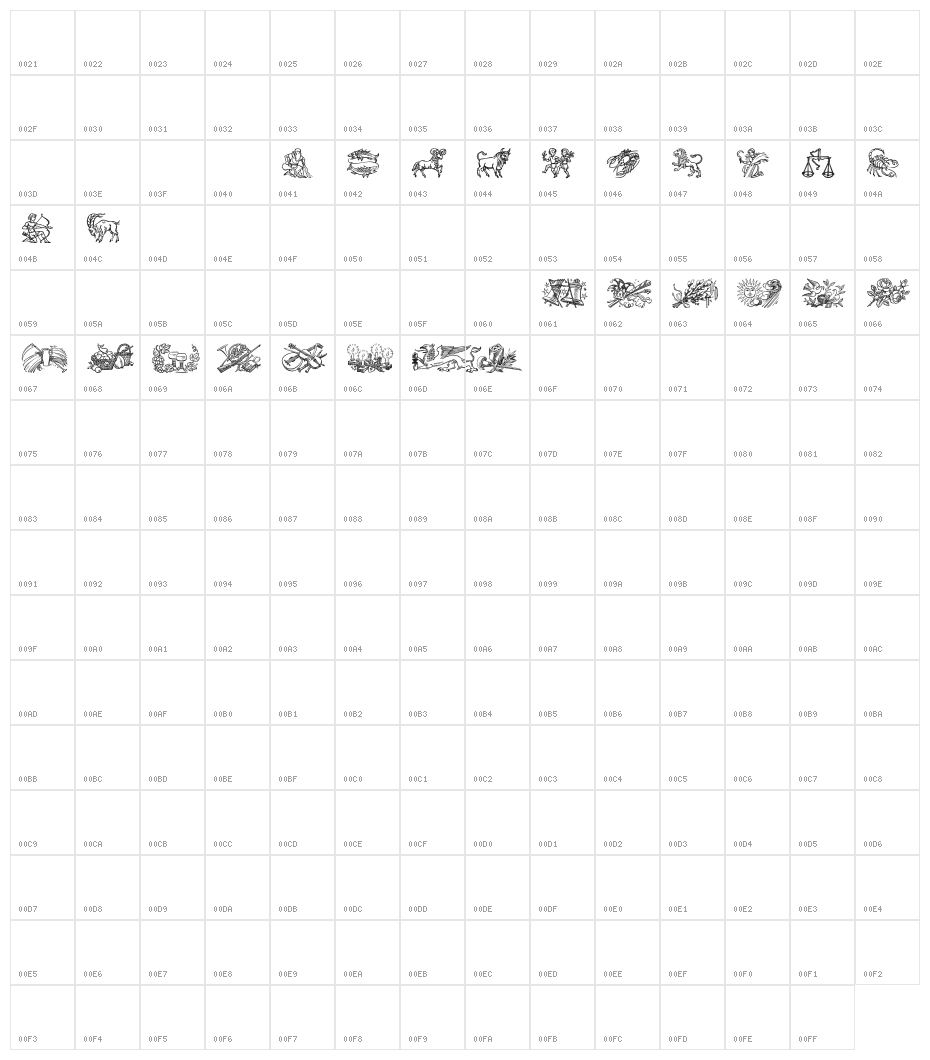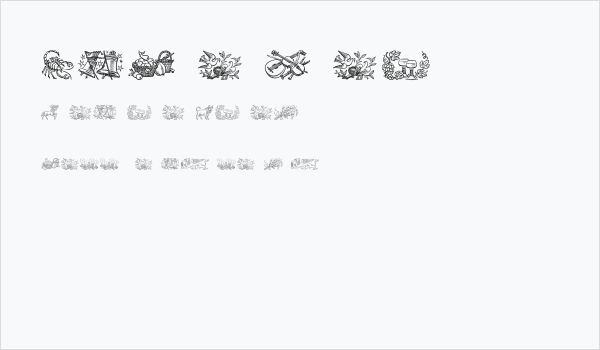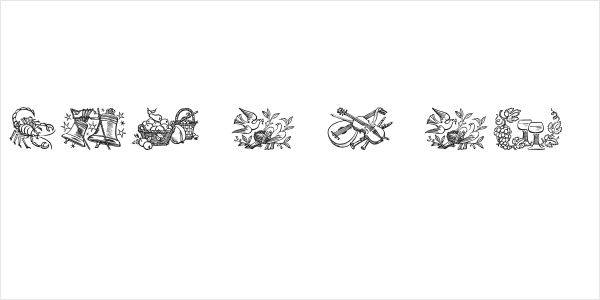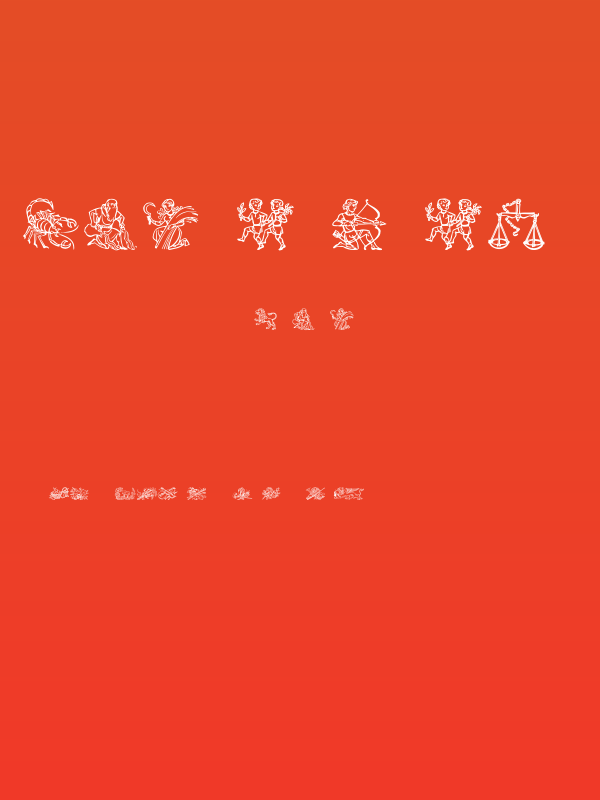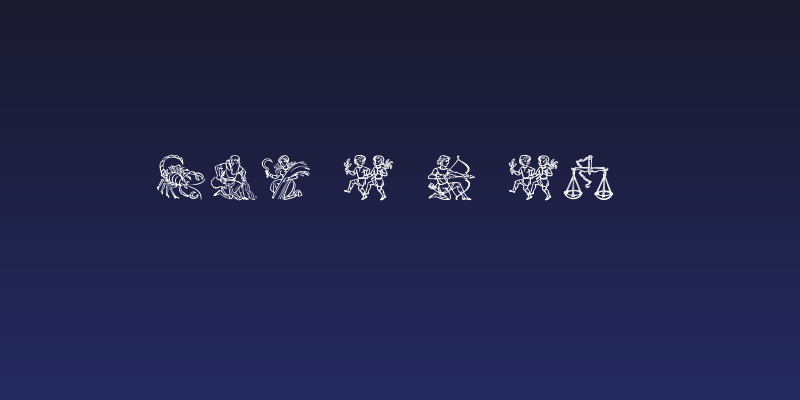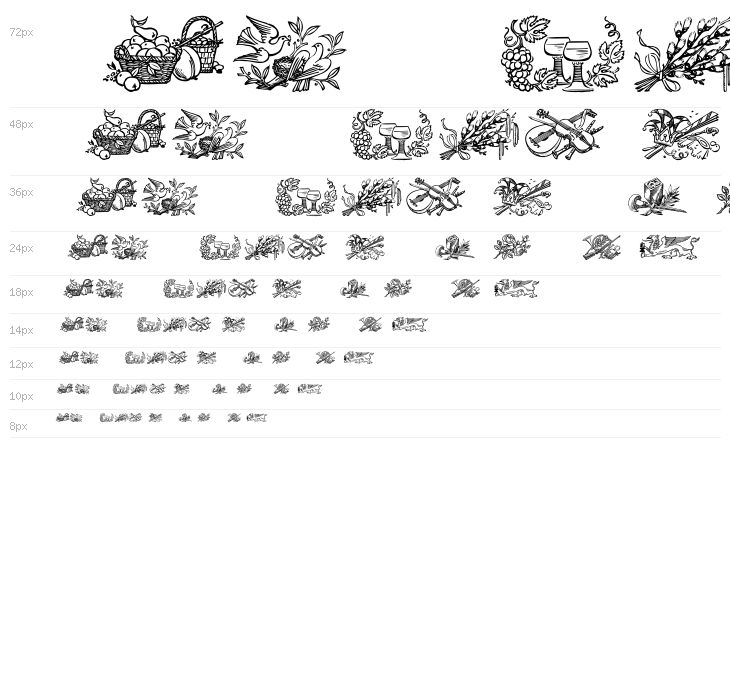
Jahreskreis Font
Jahreskreis Description
A decorative dingbat font featuring detailed black-and-white illustrations of zodiac signs and seasonal motifs, rendered in a hand-engraved, vintage style with intricate linework and shading.
| Overall Style | Vintage, Decorative |
| Use Case | Illustrative elements, thematic icons, embellishments. |
| Proposed Projects | Astrology-themed designs, calendars, greeting cards, vintage posters, decorative dividers. |